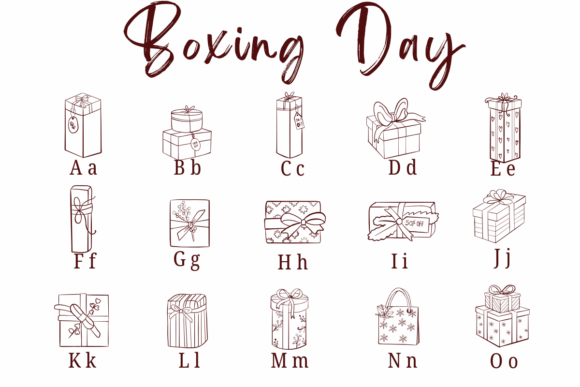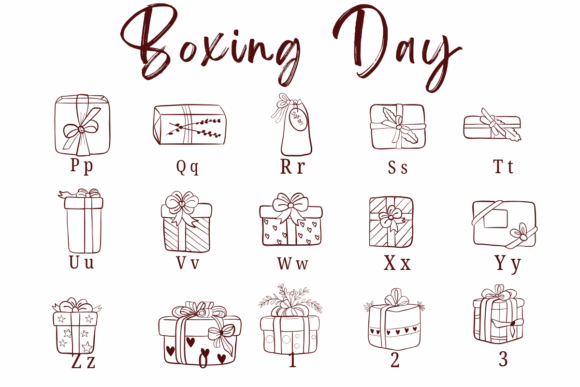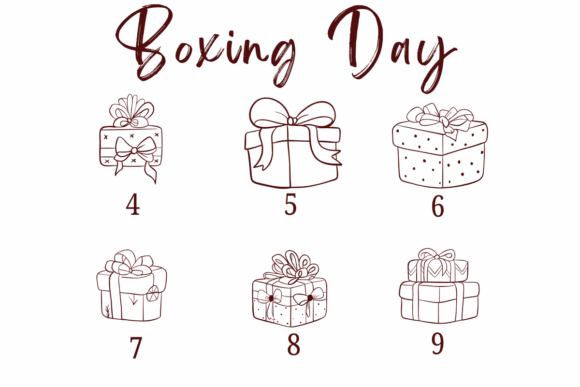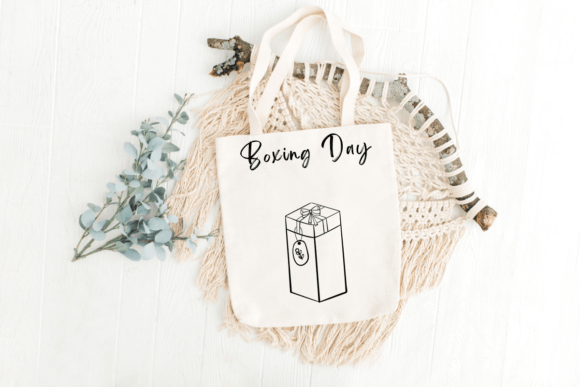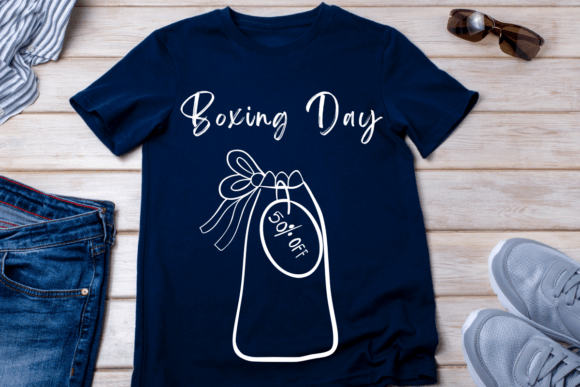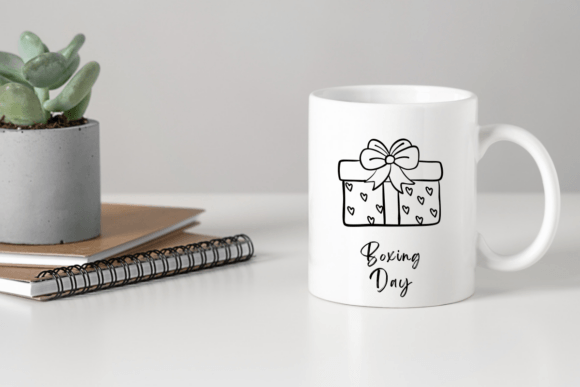
The Gift of Creativity: Unlocking the Magic of Boxing Day Font
It’s the most wonderful time of the year – and I’m not just talking about the holiday season! As a designer, I’m always on the lookout for that special something to make my projects shine. I recall a particularly stressful design moment when I was working on a client’s holiday card campaign. I had to create a festive and fun design, but I was struggling to find the right font to match the theme. That’s when I stumbled upon the Boxing Day Dingbat Font, and it was love at first sight!
The Boxing Day Dingbat Font features a fun collection of symbols related to gifts and celebrations, including images of presents, ribbons, tags, and other festive items. It’s perfect for adding holiday cheer to your designs, and I’m excited to share my experience with you.
• 🎁 The font comes with a wide range of gift-related symbols, making it perfect for holiday designs.
• 🎉 The illustrations are playful, fun, and expertly crafted, adding a touch of whimsy to any design.
• ✅ Easy to use and navigate, even for those who aren’t font experts.
• 📚 The font is versatile and can be used for various design projects, from greeting cards to social media graphics.
• ⚠️ Some of the glyphs might be a bit too intricate for small font sizes, so it’s best to use them in larger sizes for optimal impact.
• 🤔 The font might not be suitable for formal or professional designs, as it’s more geared towards festive and playful themes.
The Story Behind Boxing Day Font: A Designer’s Inspiration
The Boxing Day Font was created by a talented designer who wanted to capture the magic of the holiday season. Inspired by traditional gift wrapping and festive decorations, the designer crafted a unique and playful collection of glyphs that would bring joy to designers and crafters alike. Although the designer’s story is fictional, their passion for creating beautiful and functional fonts is evident in every detail of the Boxing Day Font.